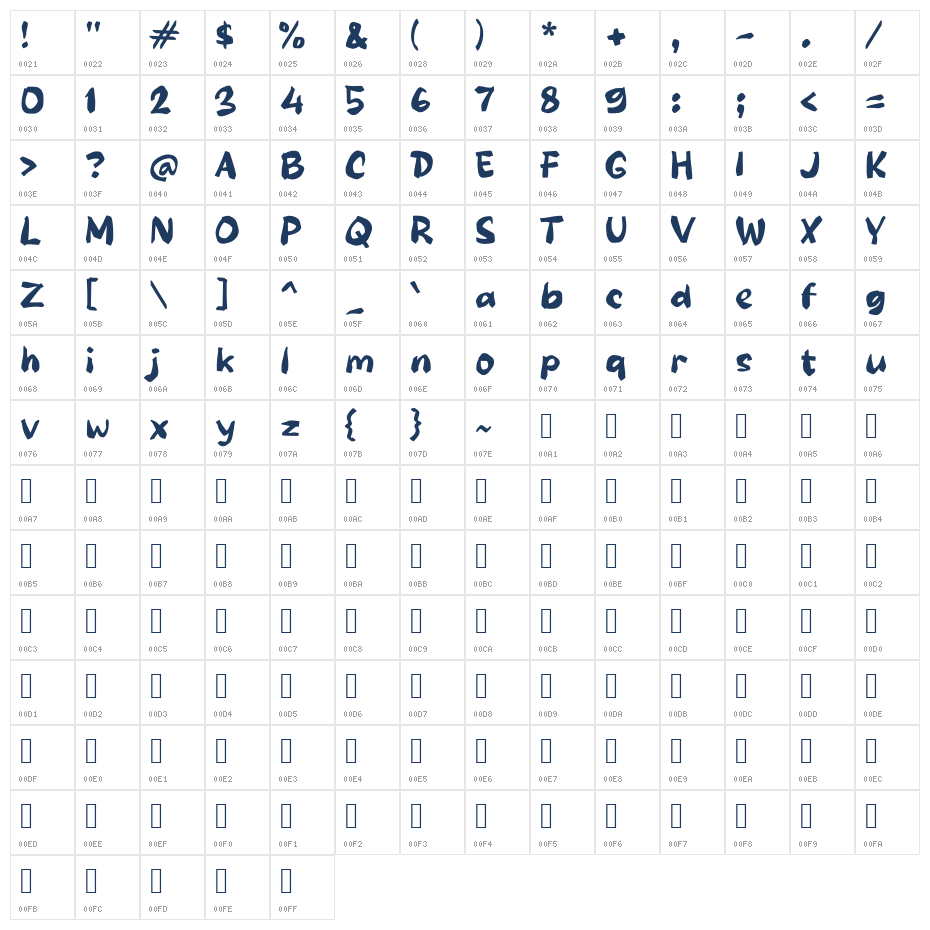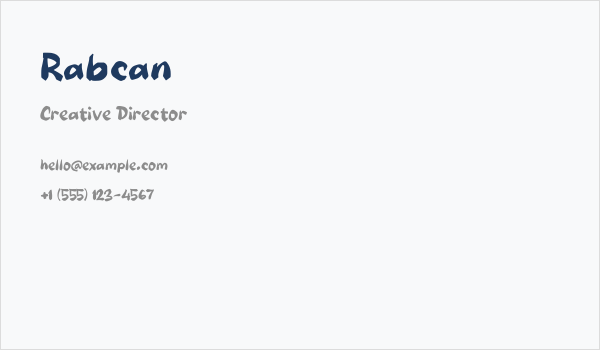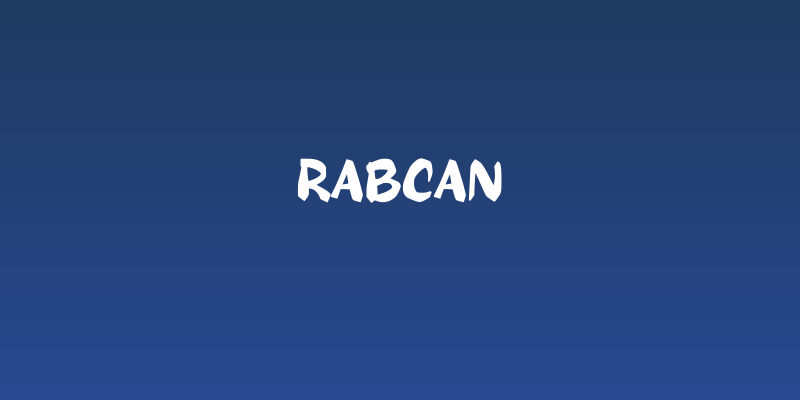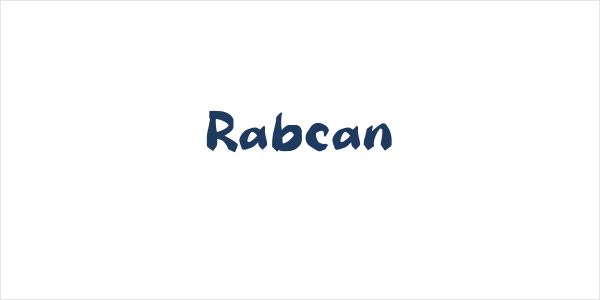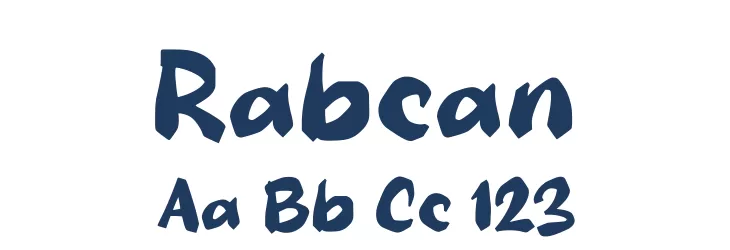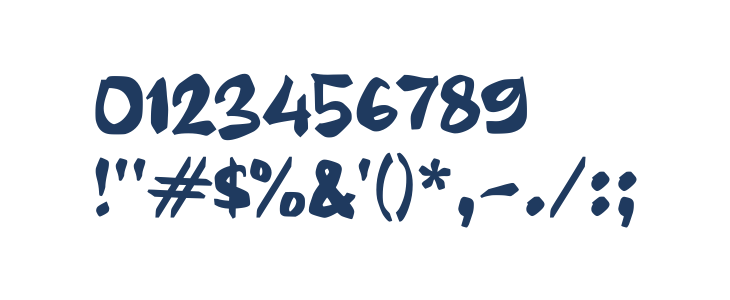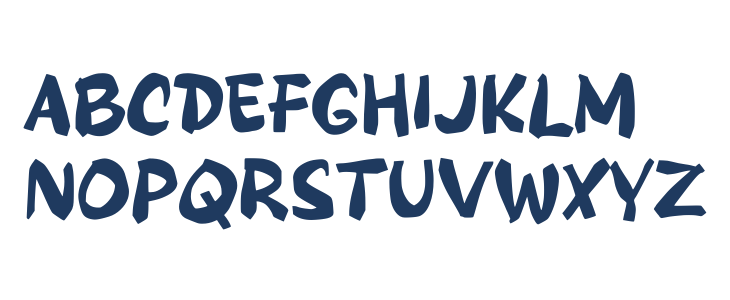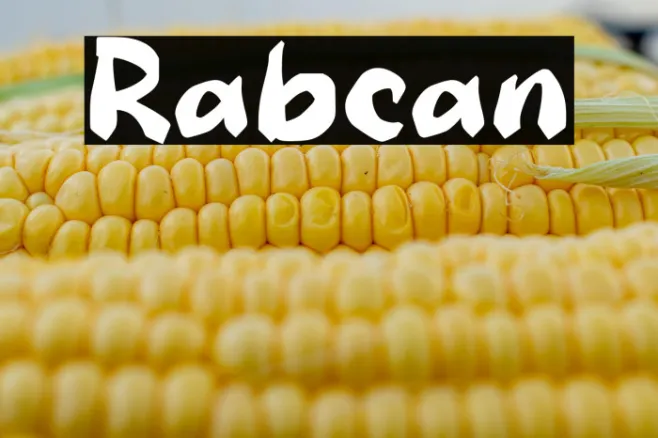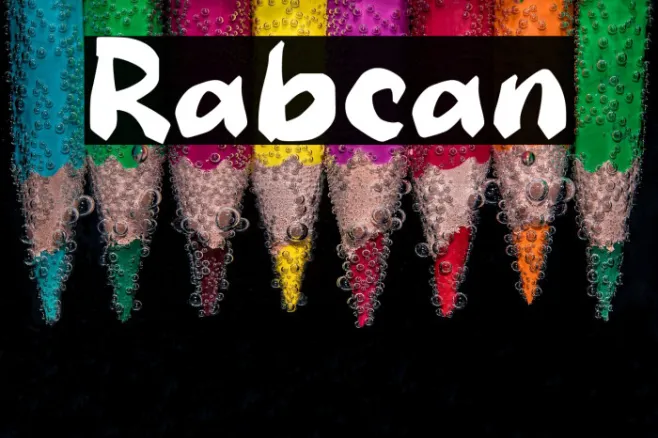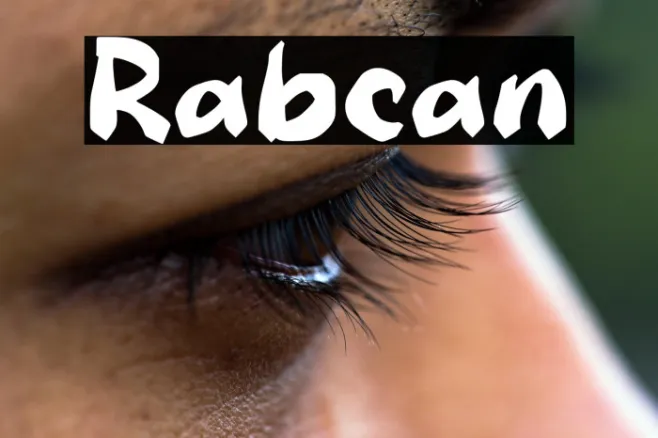
Rabcan Font
Rabcan Description
A bold, playful, handwritten style font with irregular, brush-like strokes.
| Use Case | Headlines, Posters, Children's books, Logos |